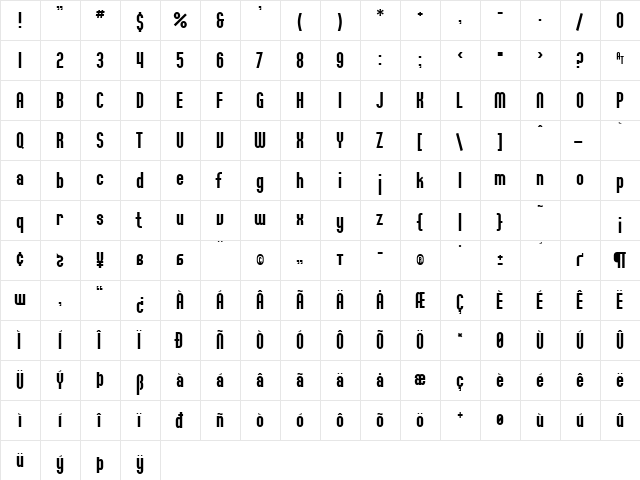
Willamette SF Regular Font Preview
Willamette SF Regular
Design Context for Willamette SF Typeface
Willamette SF takes a measured approach to typography — its balanced proportions and neutral character make it a reliable workhorse for both digital and print work.